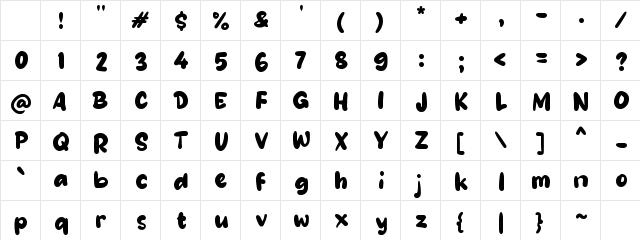
Complete Zactoon Regular glyph index. Displaying only characters natively supported by Zactoon Regular font.
Zactoon is a composed and adaptable typeface that performs quietly and consistently across a wide range of design contexts.